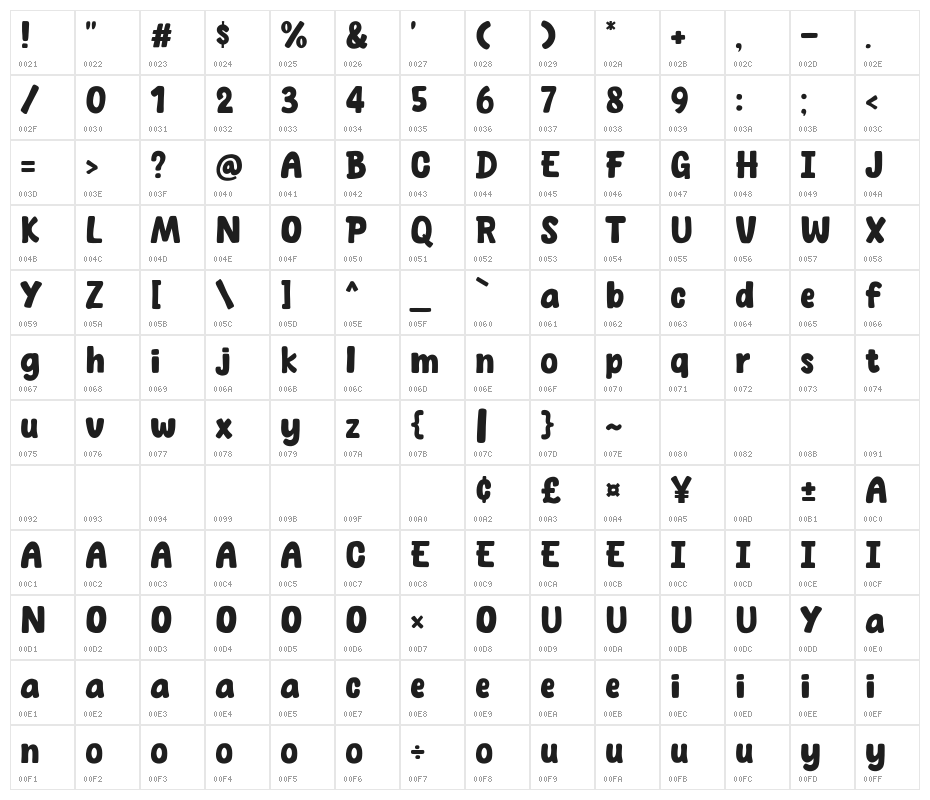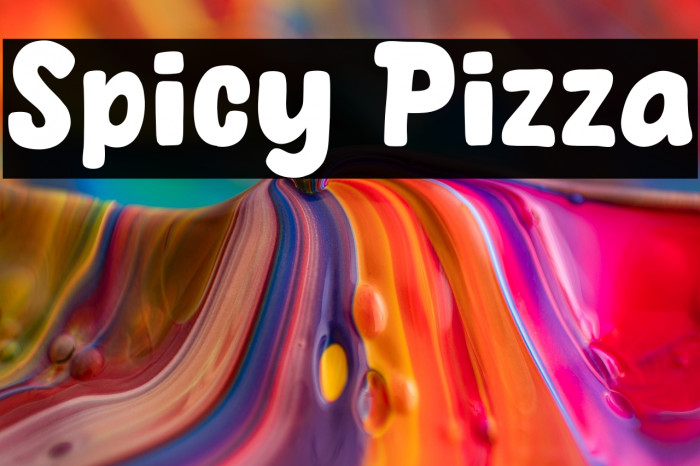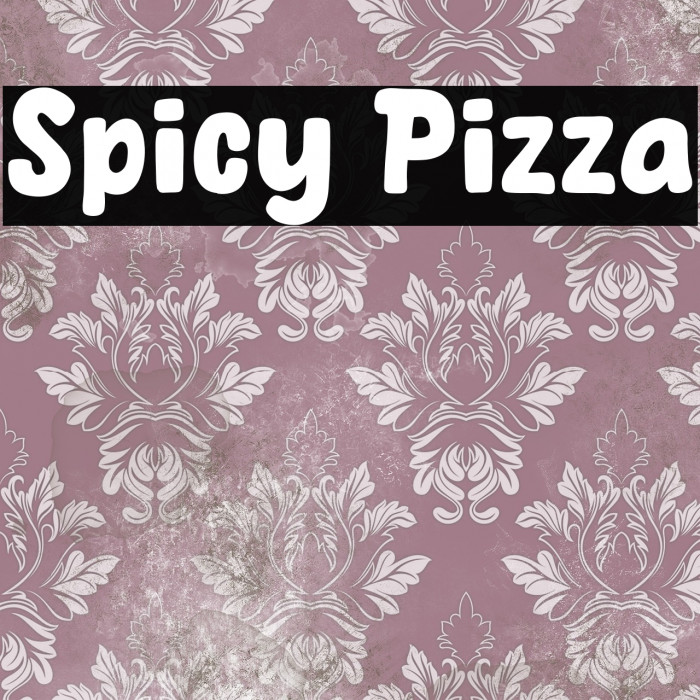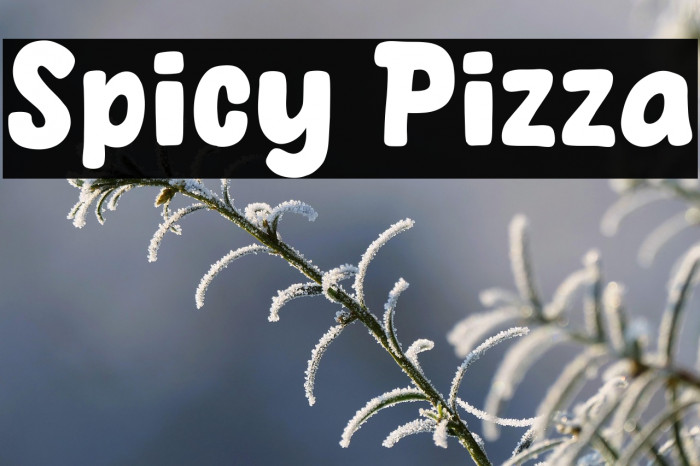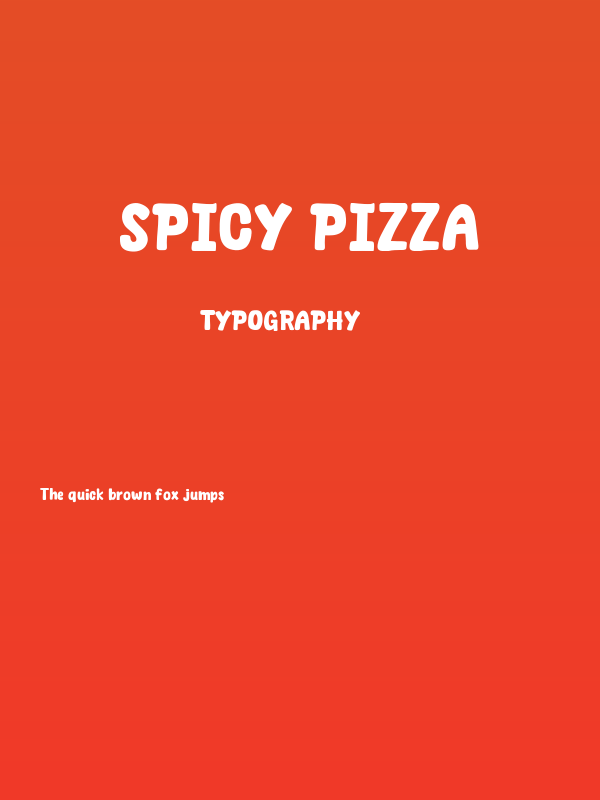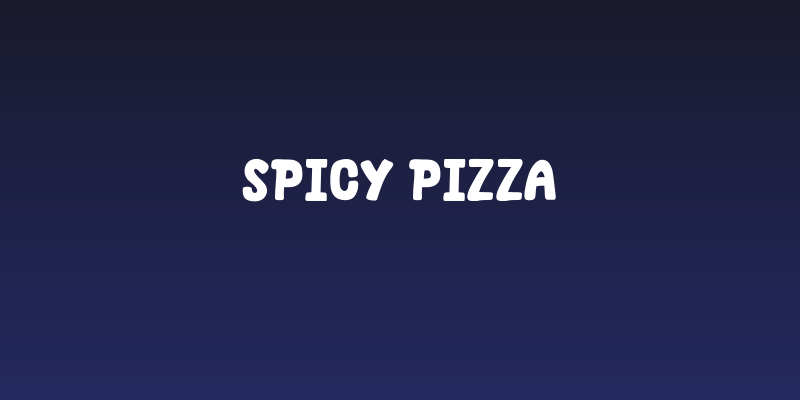
Spicy Pizza Font
This playful and bold font features rounded, thick strokes that give it a friendly and approachable appearance. The characters are slightly irregular, adding a whimsical touch that enhances its charm. The uppercase and lowercase letters maintain a consistent weight, ensuring readability while still conveying a sense of fun. The numbers and special characters are designed with the same playful style, making them suitable for a variety of creative applications. This font is perfect for projects that require a lively and energetic feel, such as children's books, playful branding, or eye-catching posters.
| Proposed Projects | Ideal for children's books, playful branding, posters, and creative designs. |